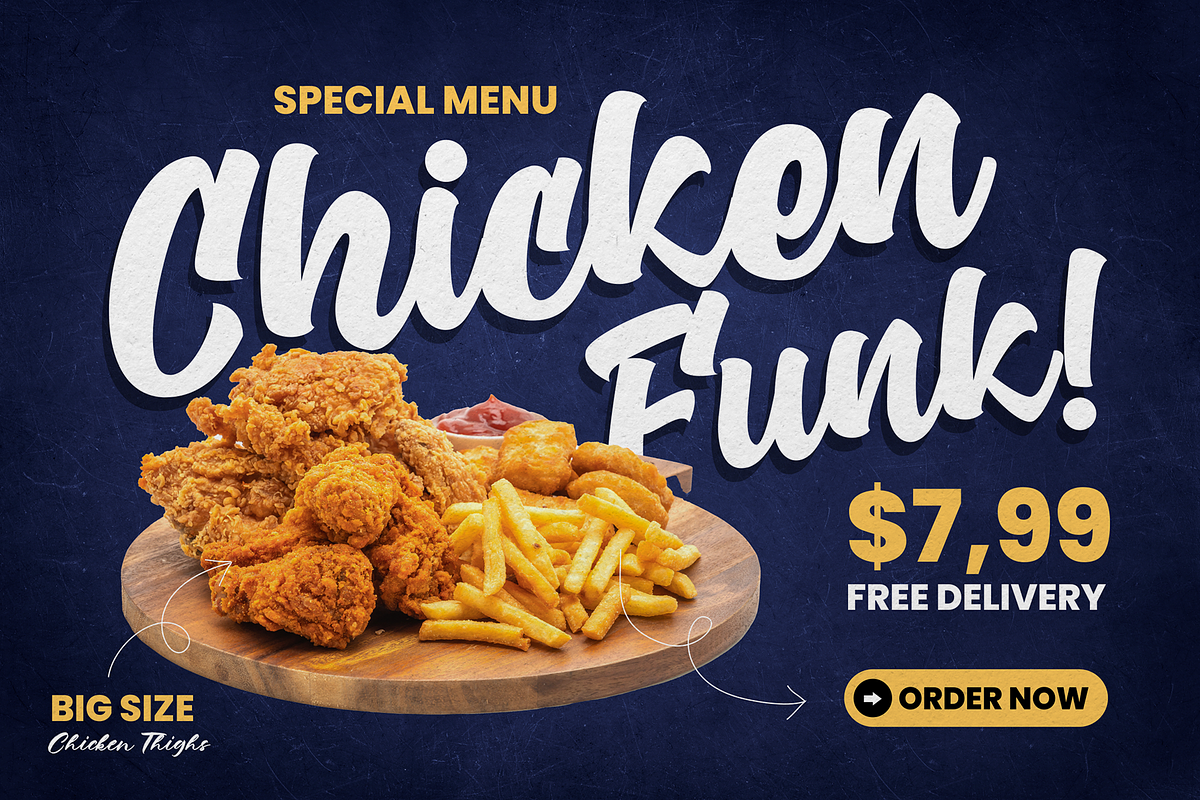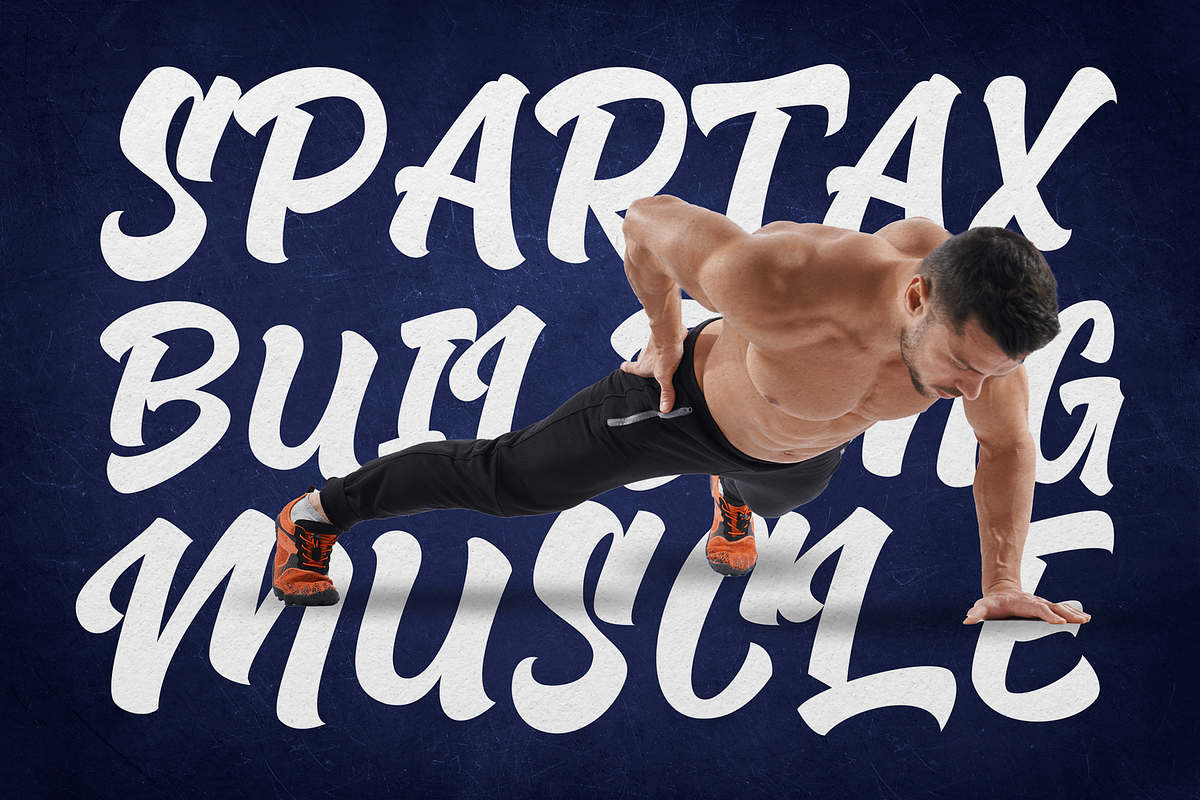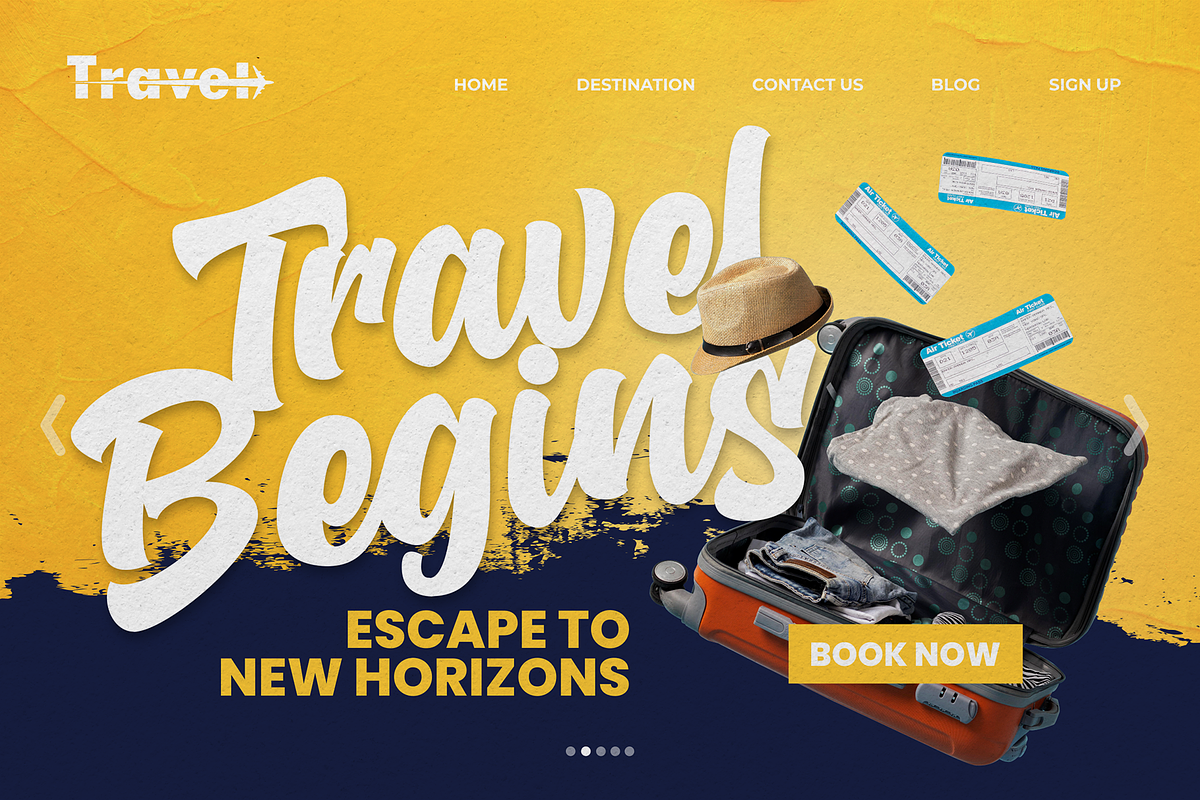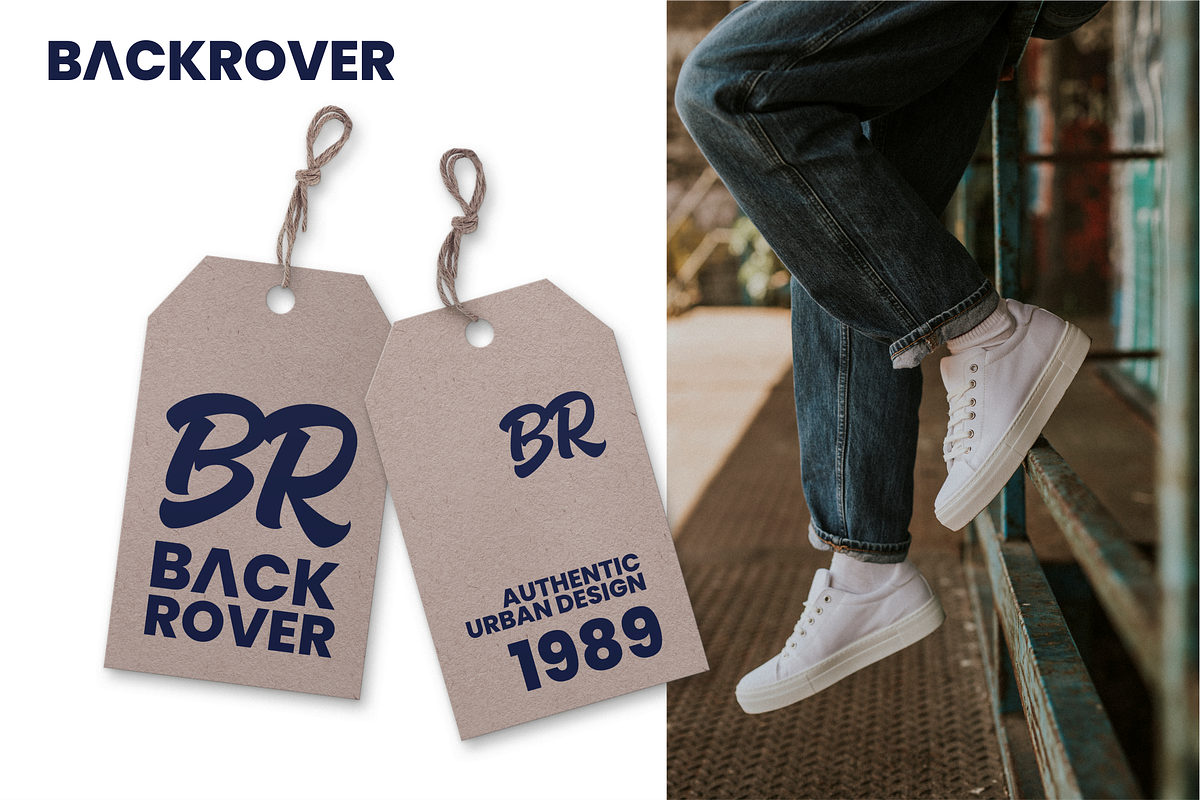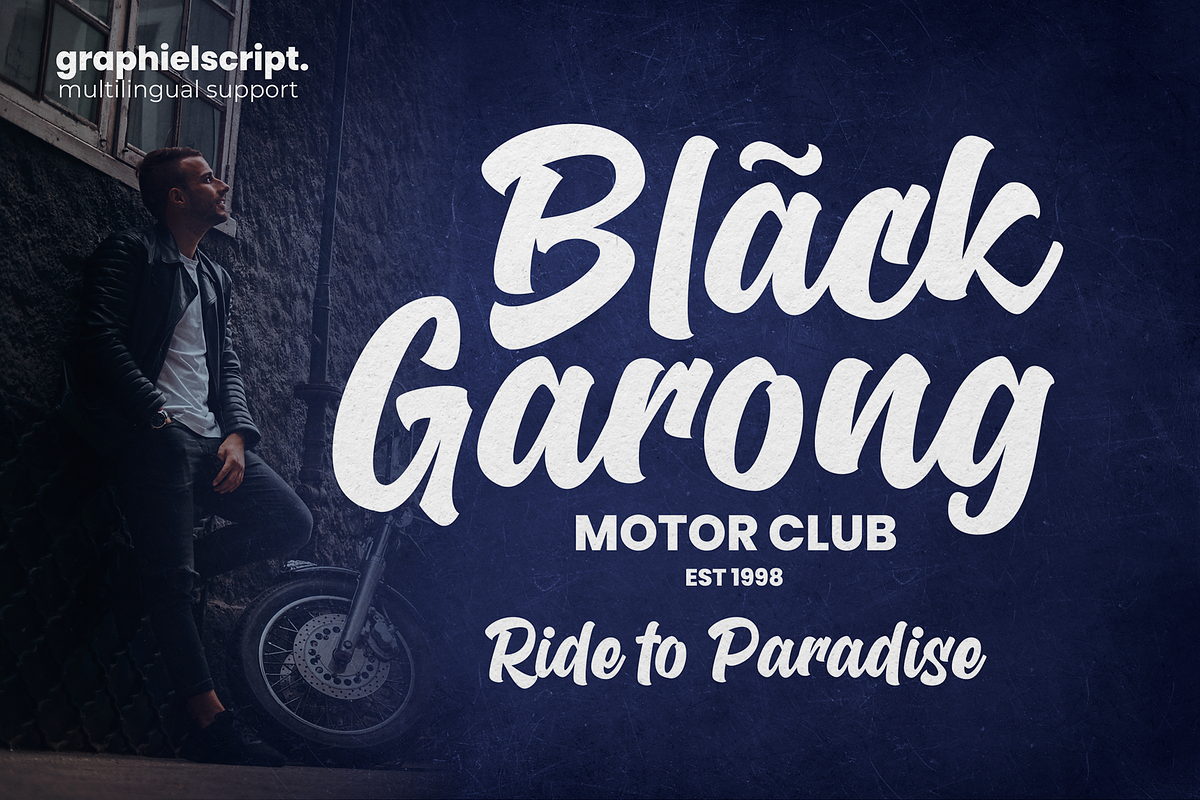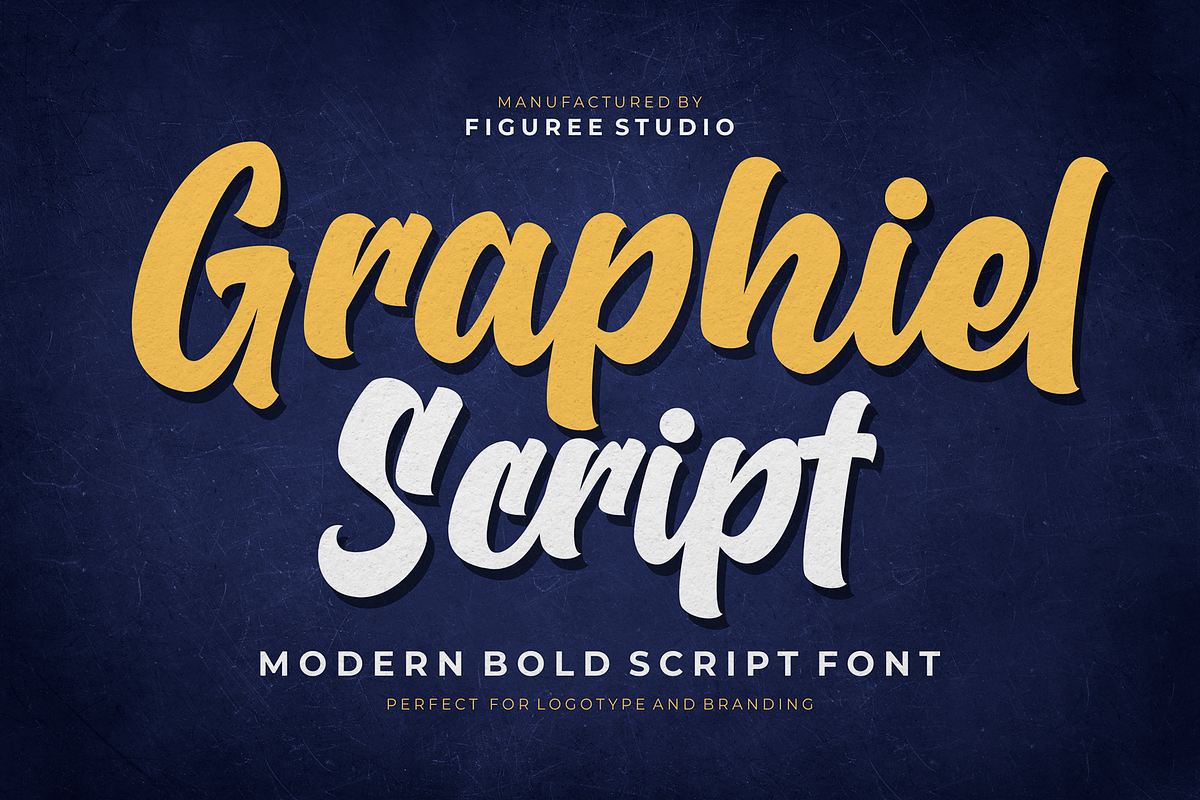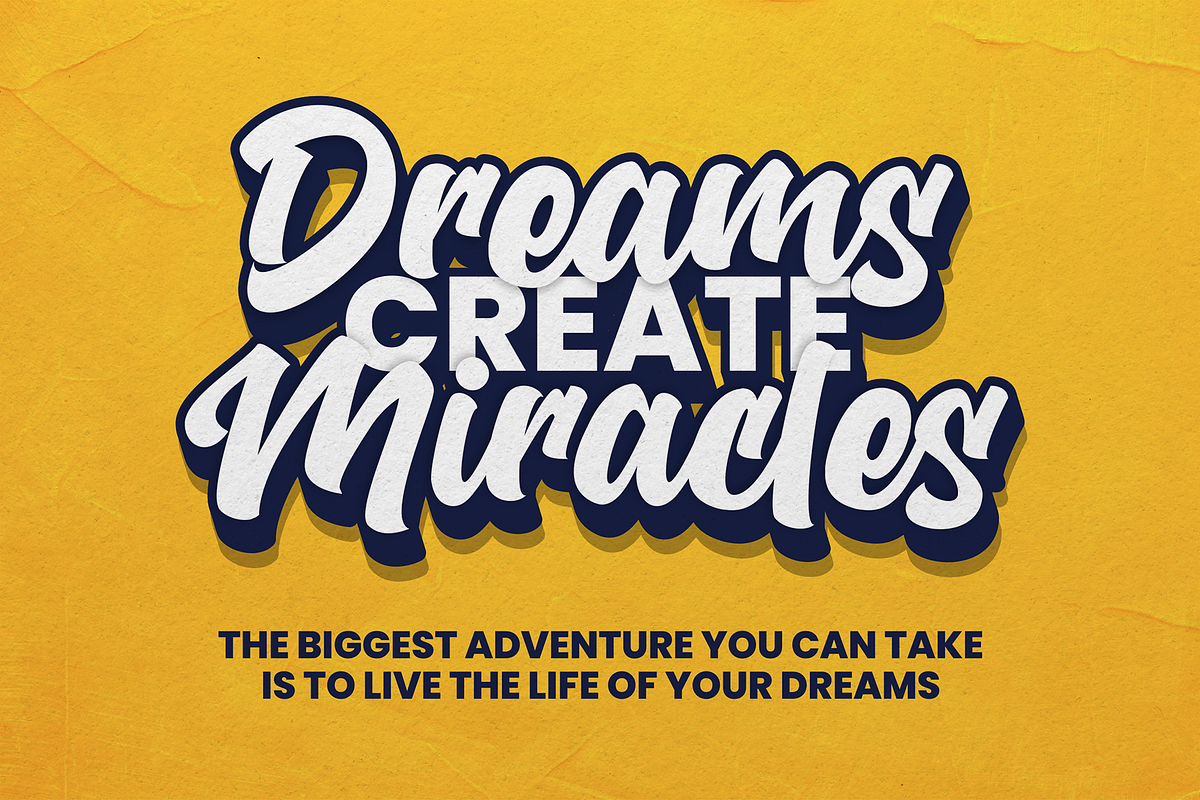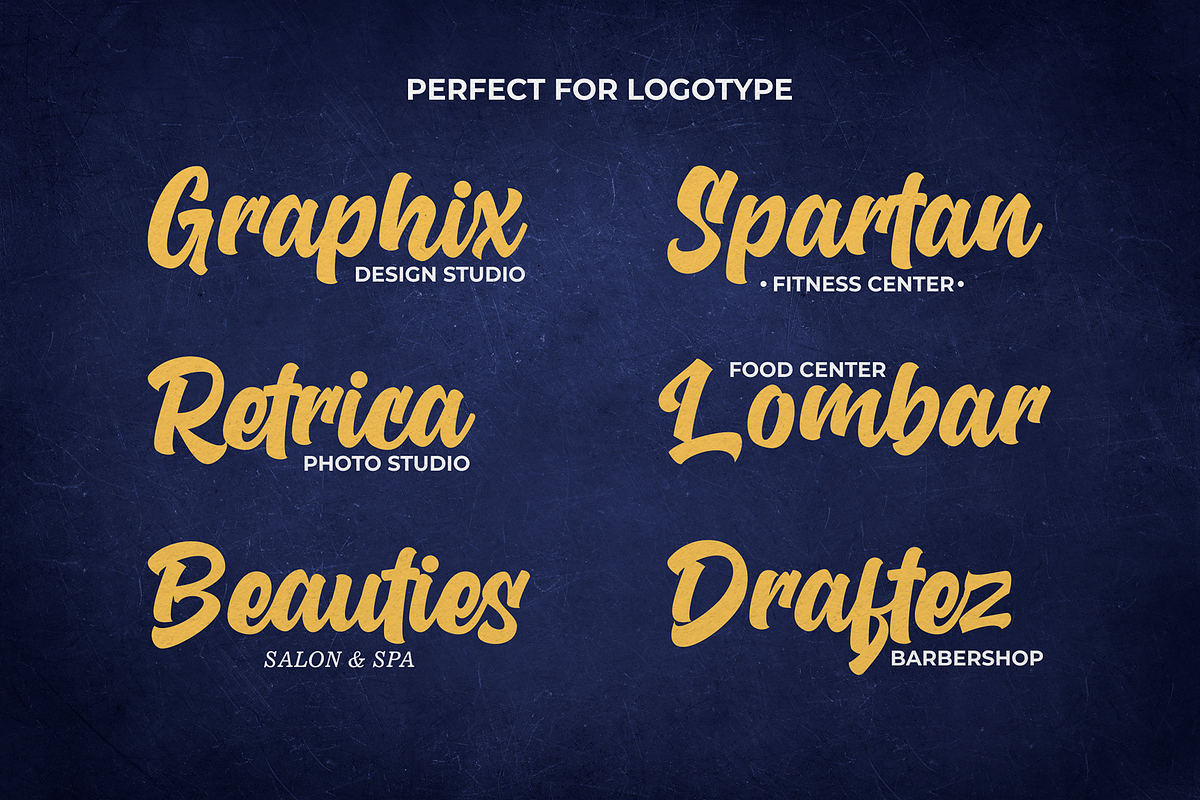
Graphiel - Modern Bold Script
Graphiel Script is a modern bold script font that exudes confidence and sophistication. With its sleek and stylish letterforms, this font adds a touch of elegance to any design project. The bold strokes and fluid curves of Graphiel Script create a sense of dynamism and energy, making it perfect for attention-grabbing headlines, logos, branding materials, and more. Whether used for formal invitations or trendy social media graphics, this font captivates with its contemporary aesthetic and versatility. Graphiel Script strikes the perfect balance between modernity and classic script charm, allowing you to make a bold statement with your typography while maintaining a sense of refinement.